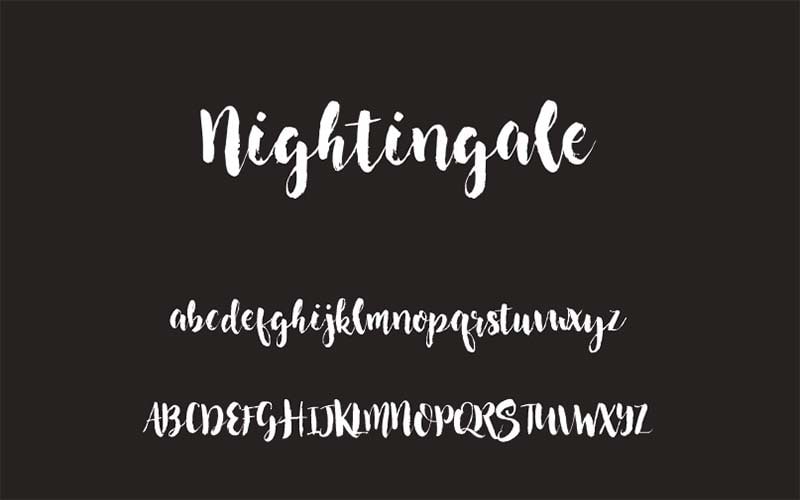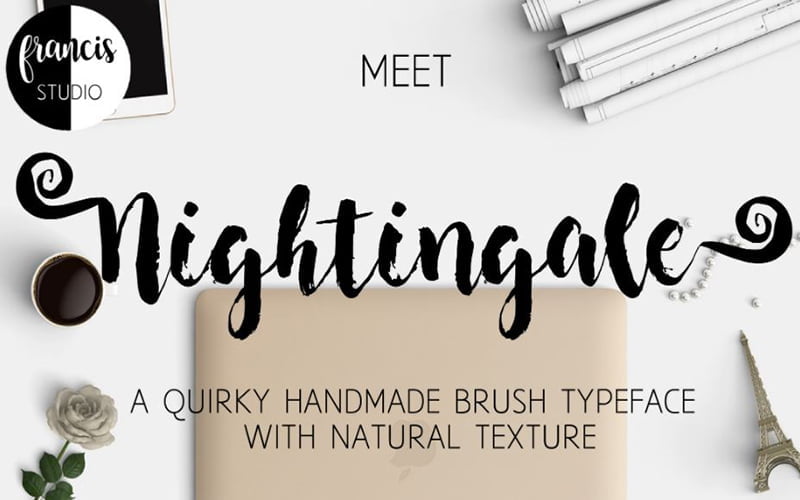
Introducing to you an elegant script font, Nightingale Font is a stylish script, brush typeface that features a varying baseline, smooth curve line, classic and awesome. That was created by Francis Studio.
This stylish brush typeface comes in only one weight including regular with full of alternates, lots of swatches, 264 special characters, and ligatures, it is perfect for both short and long body text.
The extraordinary typeface in which all the characters are handmade comes in a natural flow. The swatches help to increase its beauty and uniqueness overall.
It’s just because of making a relation between its letters so they can easily make pair with each other. This aspect helps to make it beautiful and unique from others and surely it is ready to create fine quality designs.
Nightingale Font
Further, preview the font map images we added here to get more ideas about this typeface. Each character has its own different conditions, including a very special appearance and characteristics.
You can openly use this amazing typeface to create logo designs, t-shirts, printing on cards, book covers, unique emblems, taglines, invitations, special quotes, weddings, as well as many other cool places.